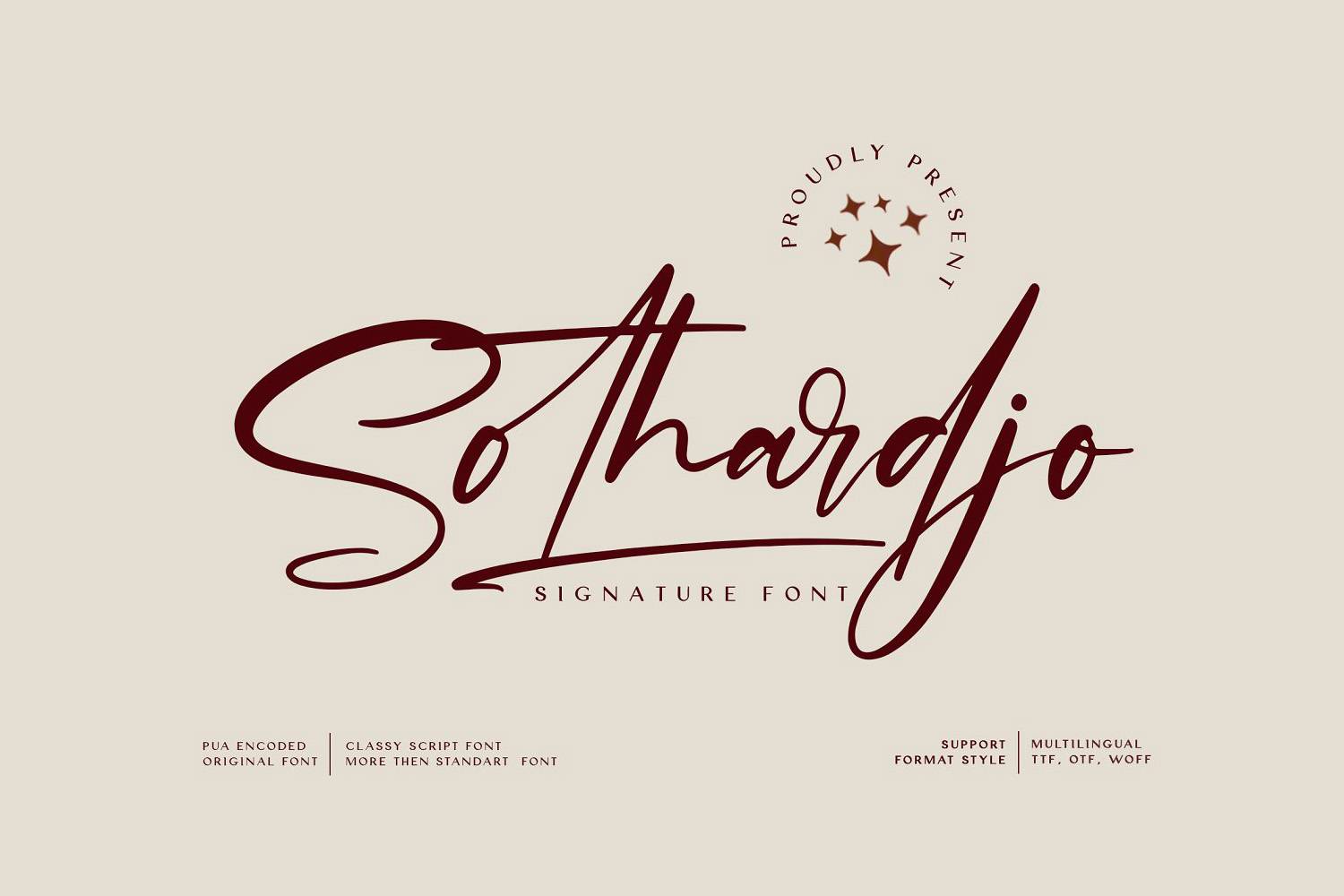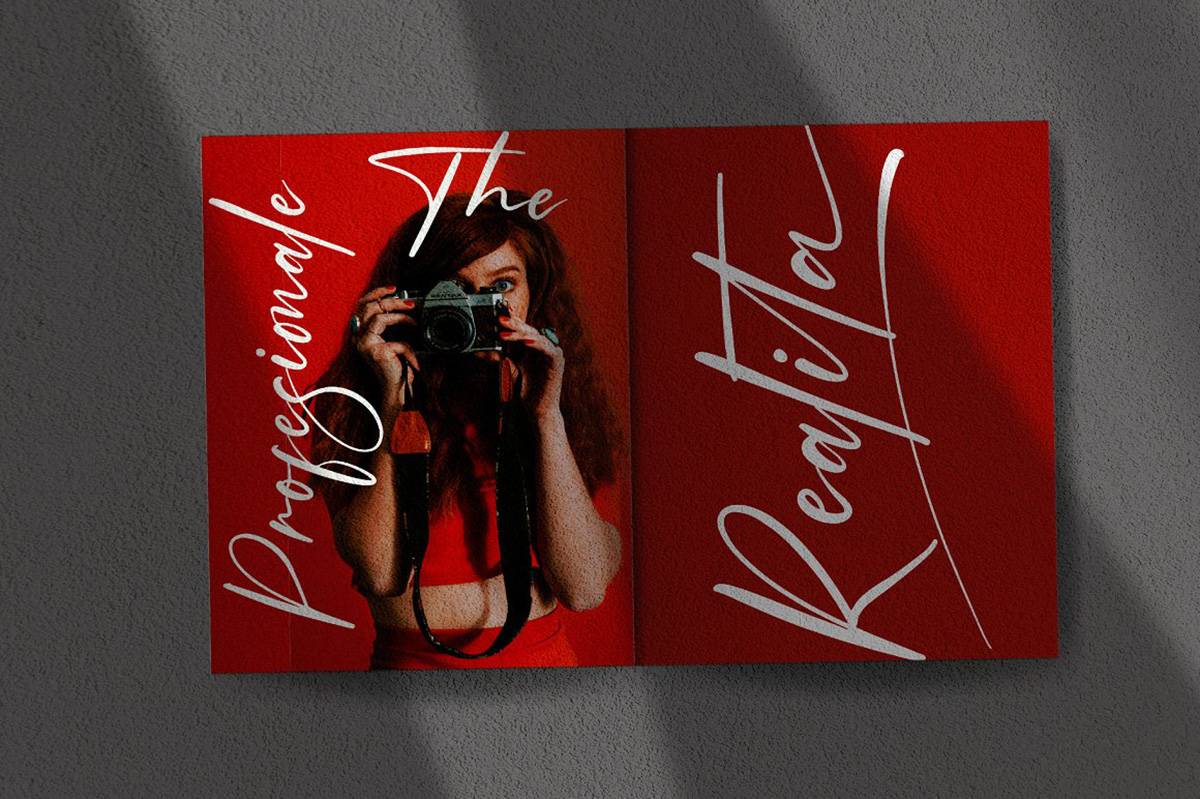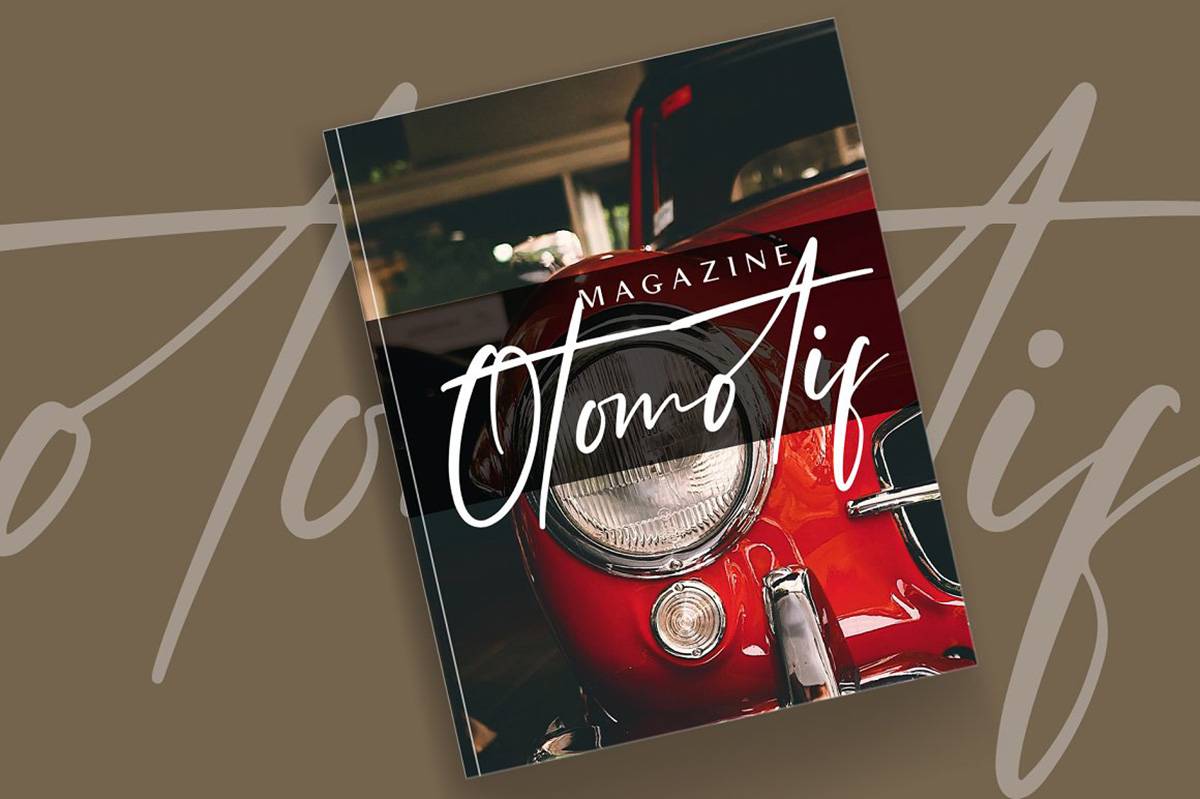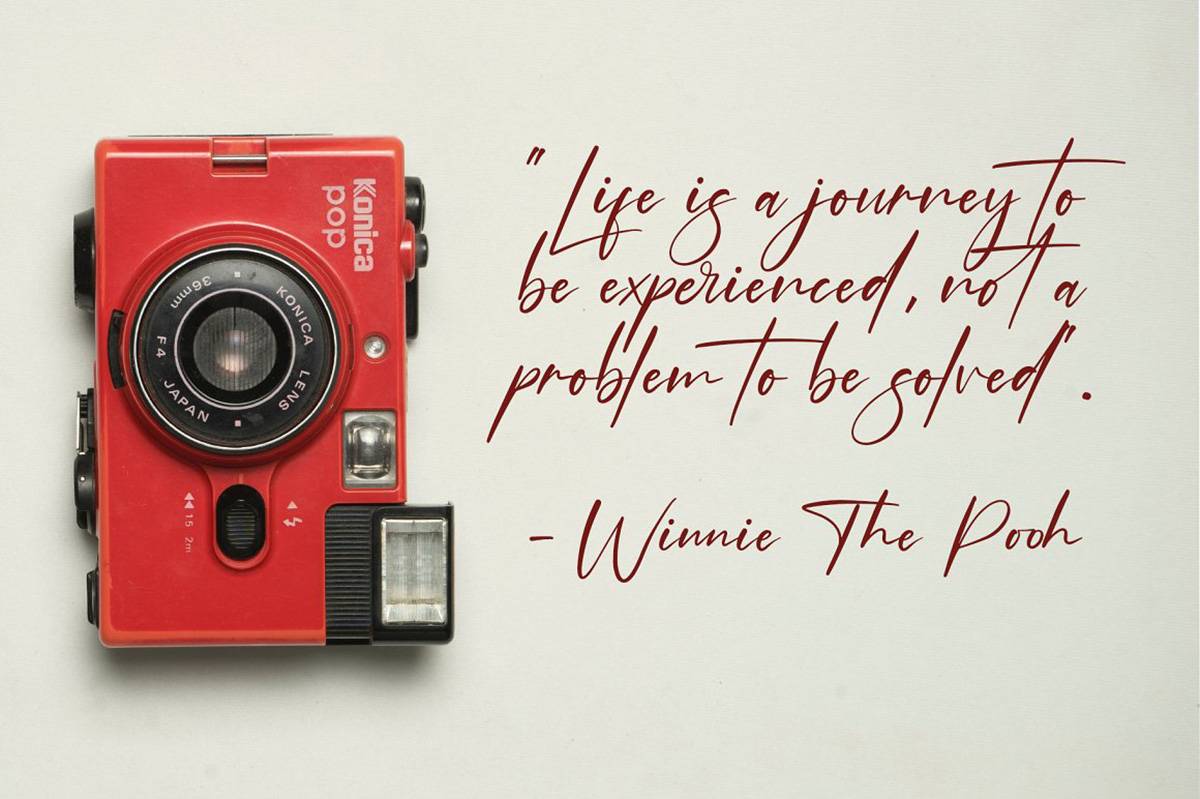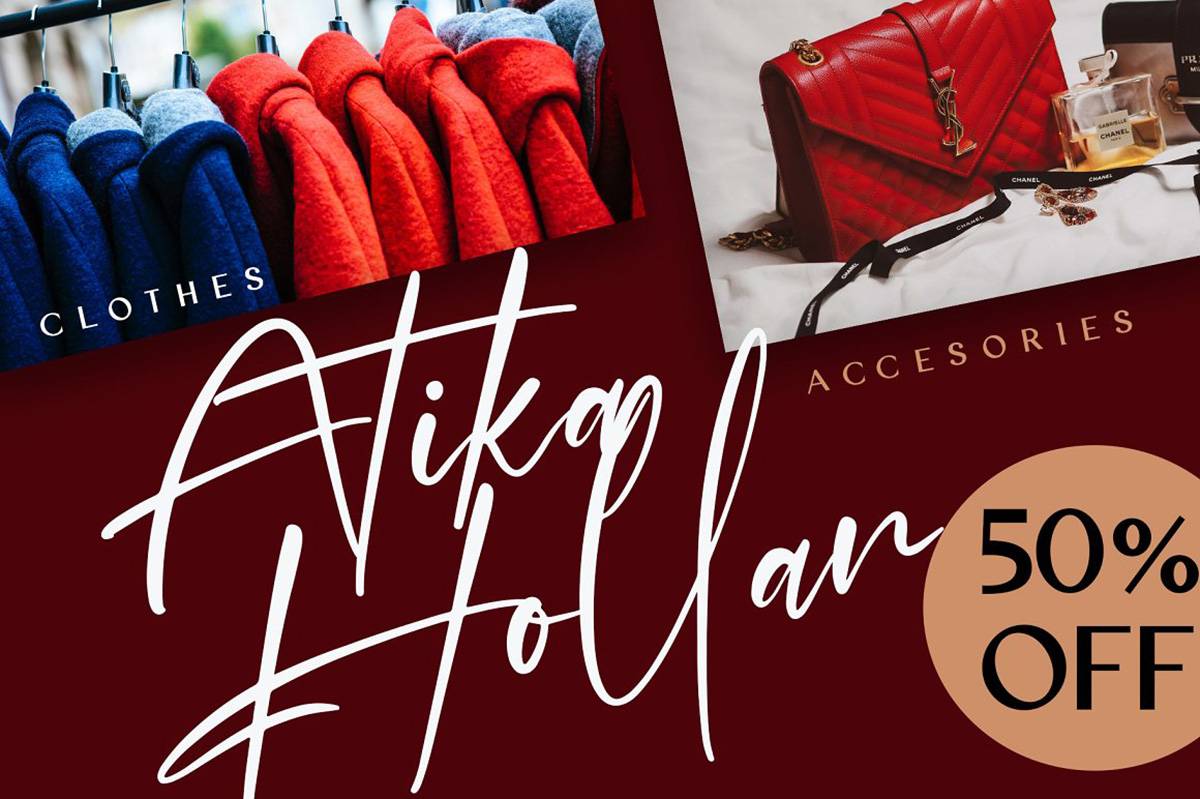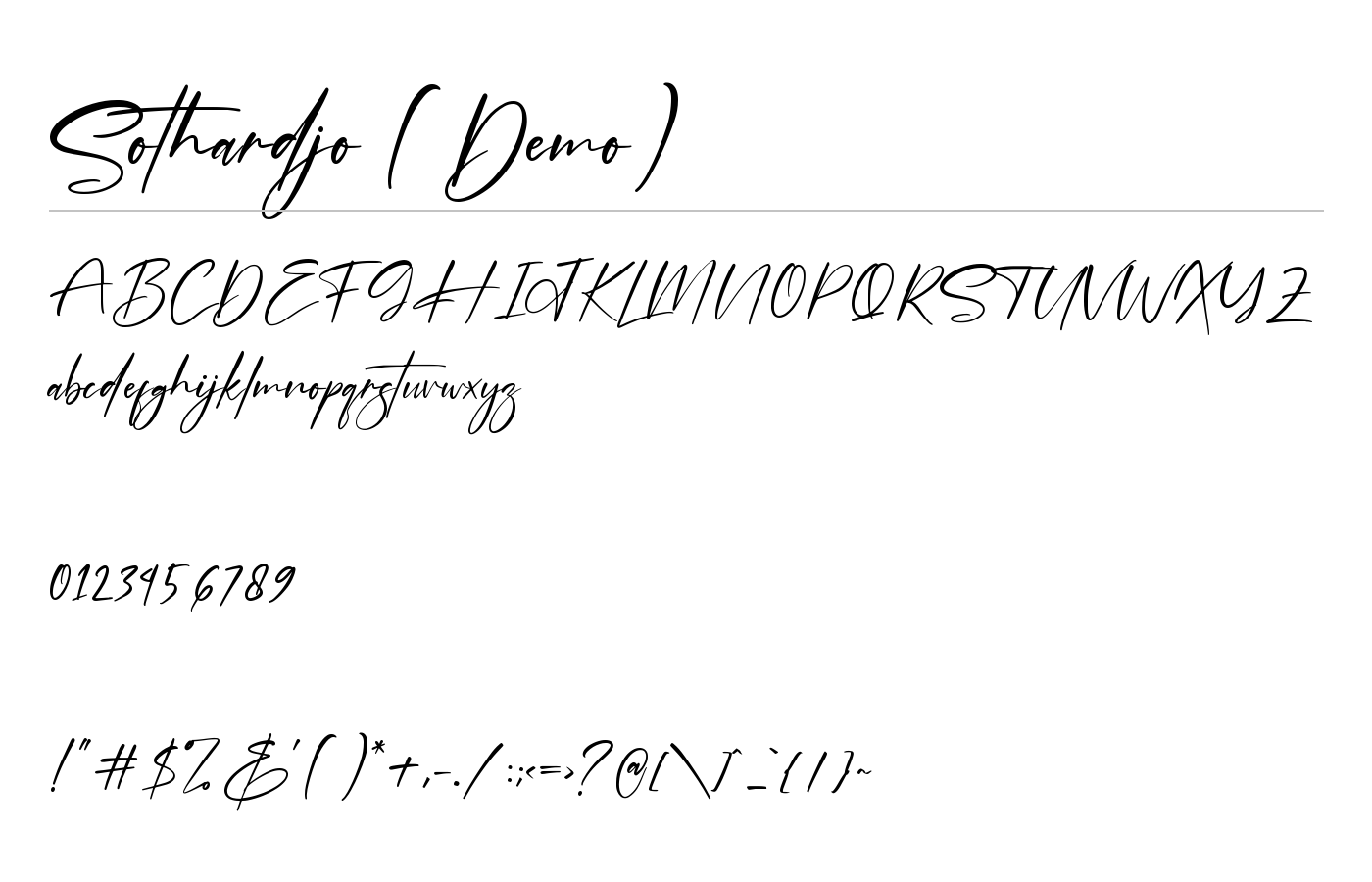
Sothardjo is an elegant script font with a delicate, handwritten style that combines fluid strokes and refined curves for a personal, artistic feel. Its light weight and tall, narrow letterforms give it a sophisticated and airy appearance, ideal for creating a graceful and modern look. Perfect for invitations, branding, and creative projects, Sothardjo adds a touch of charm and finesse wherever it’s used.
Sothardjo Font
About Sothardjo Font